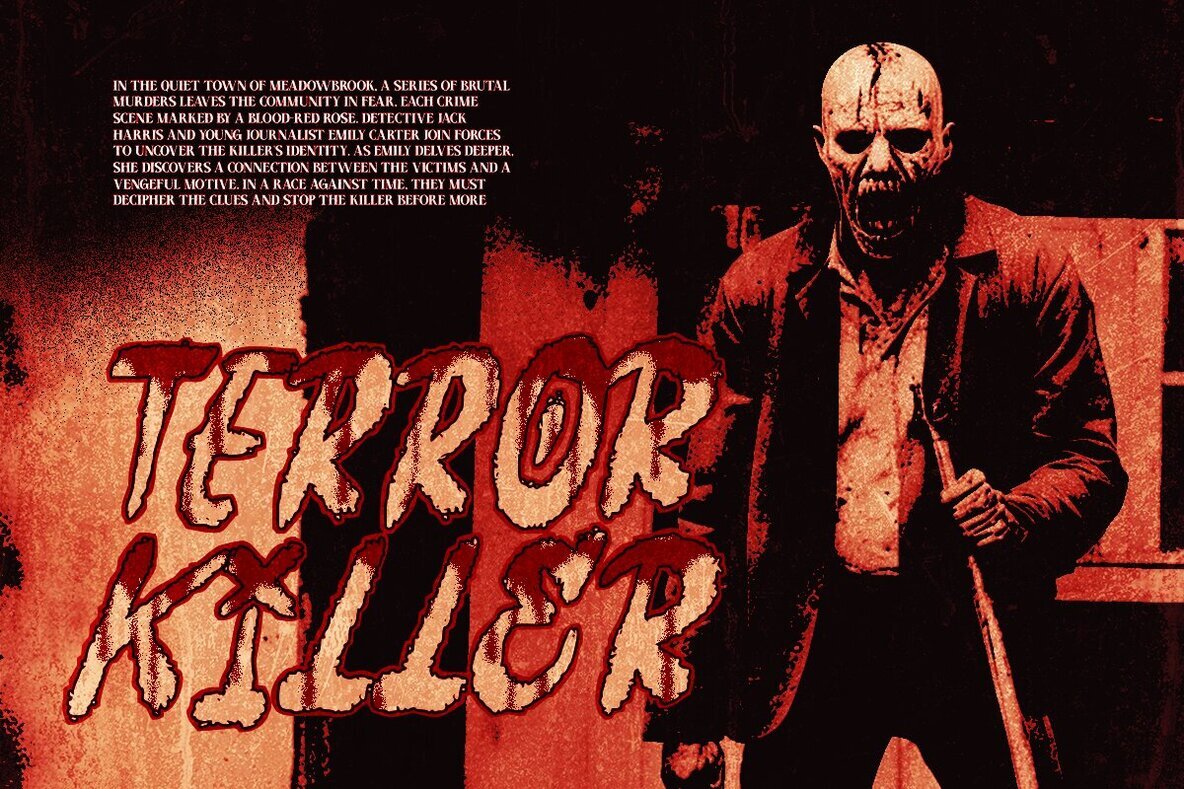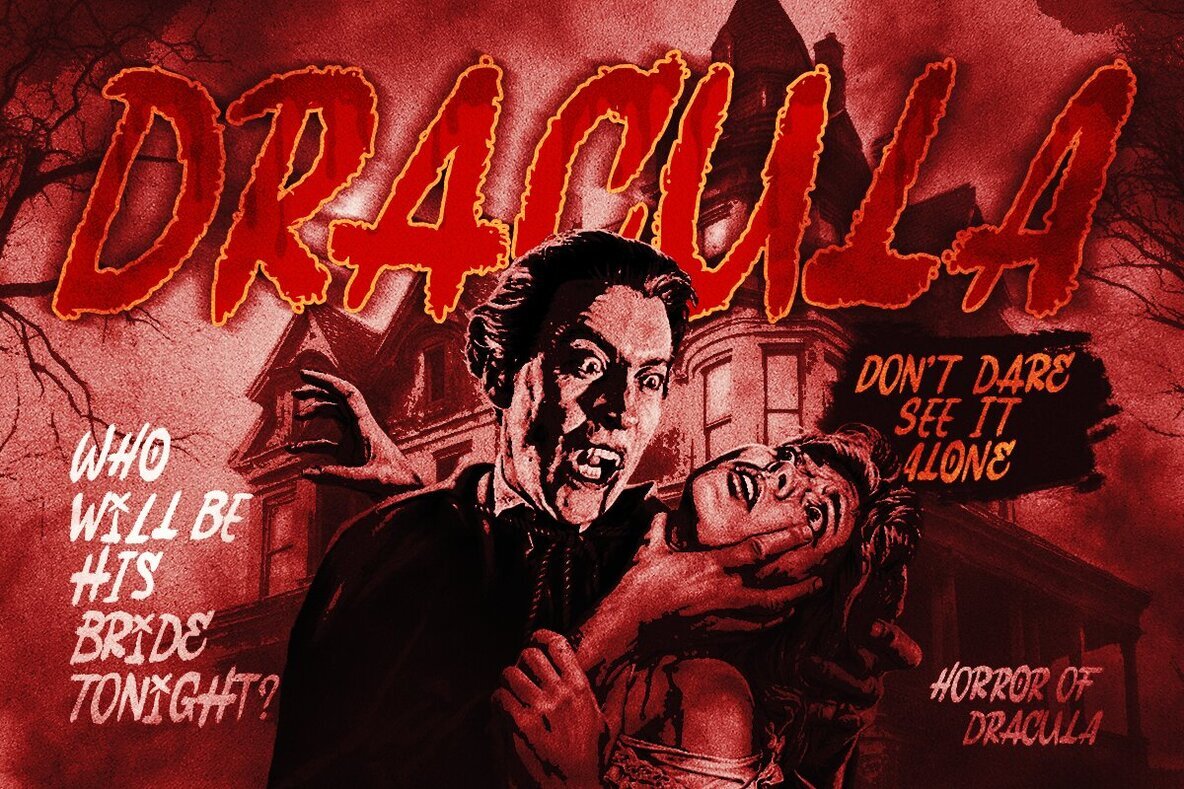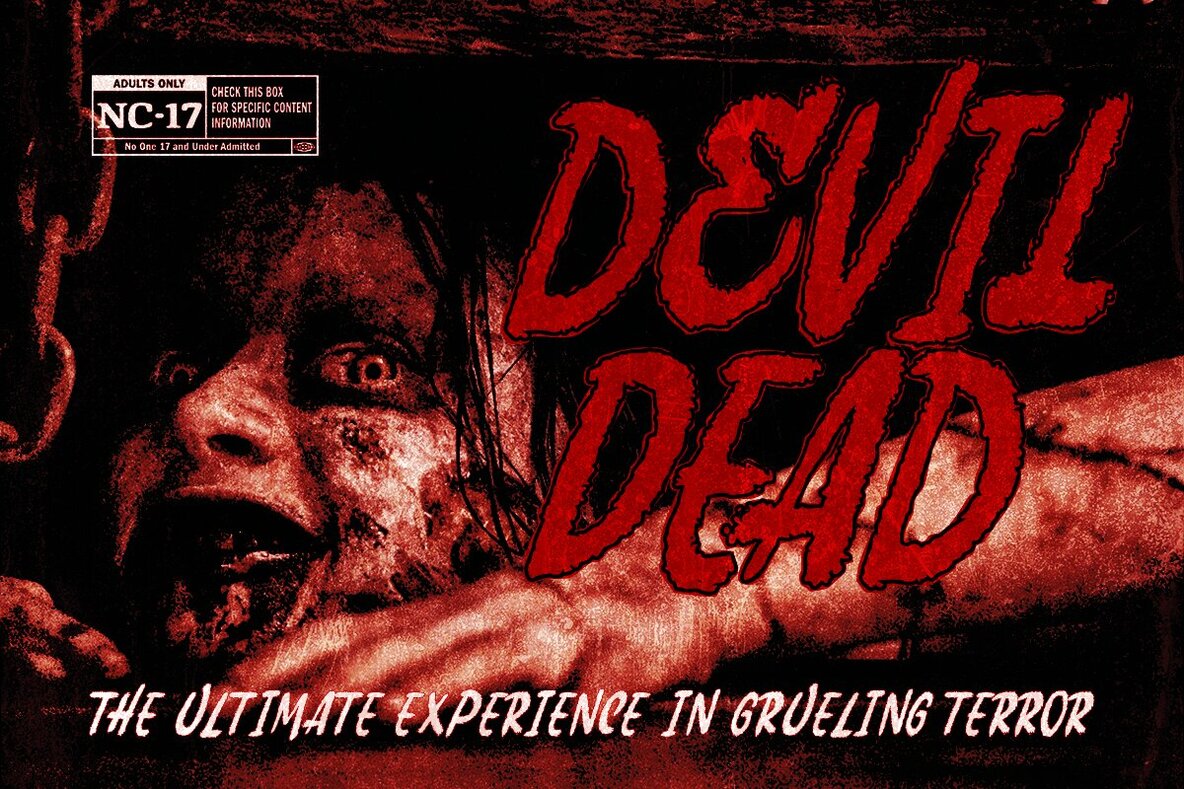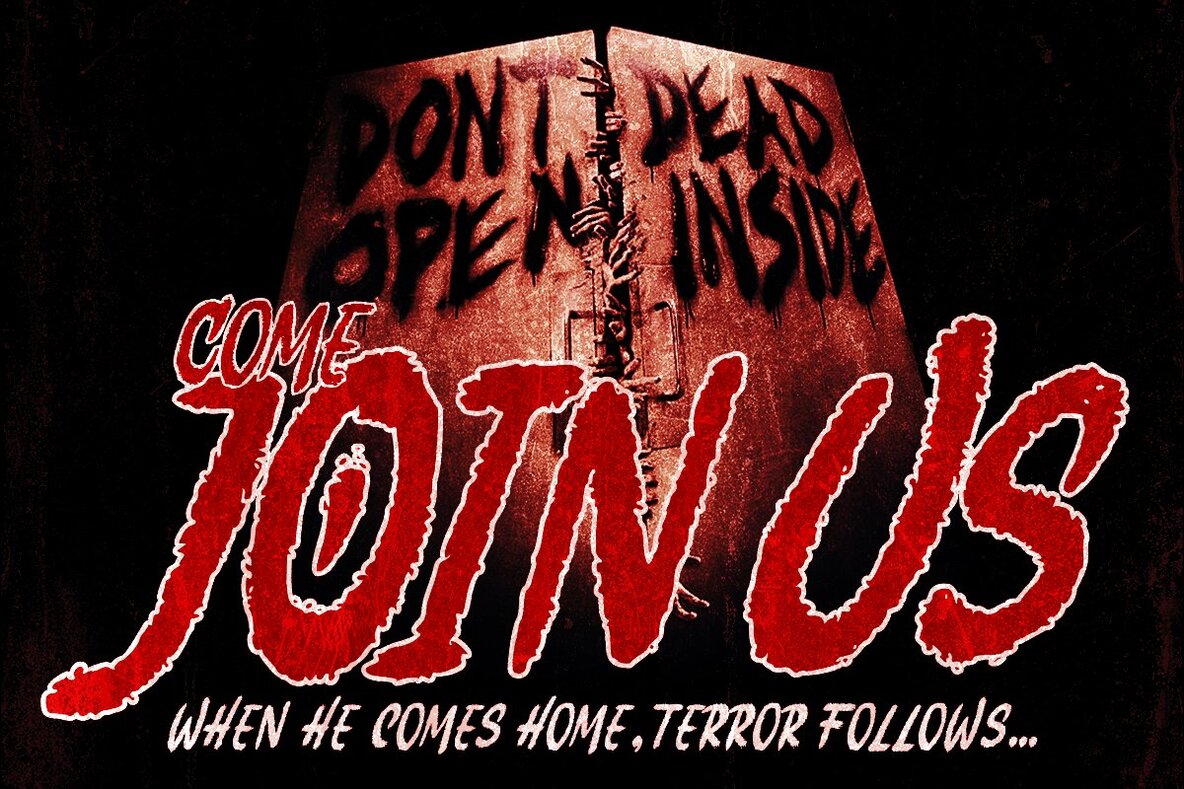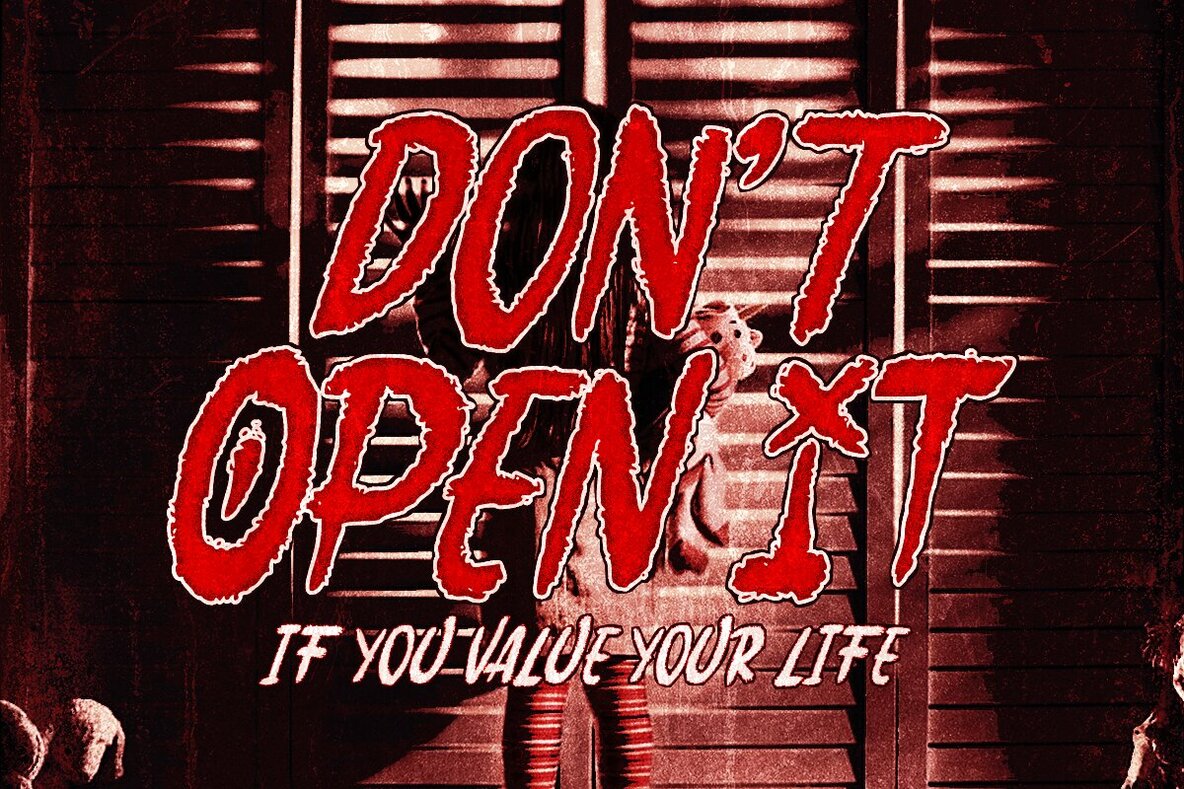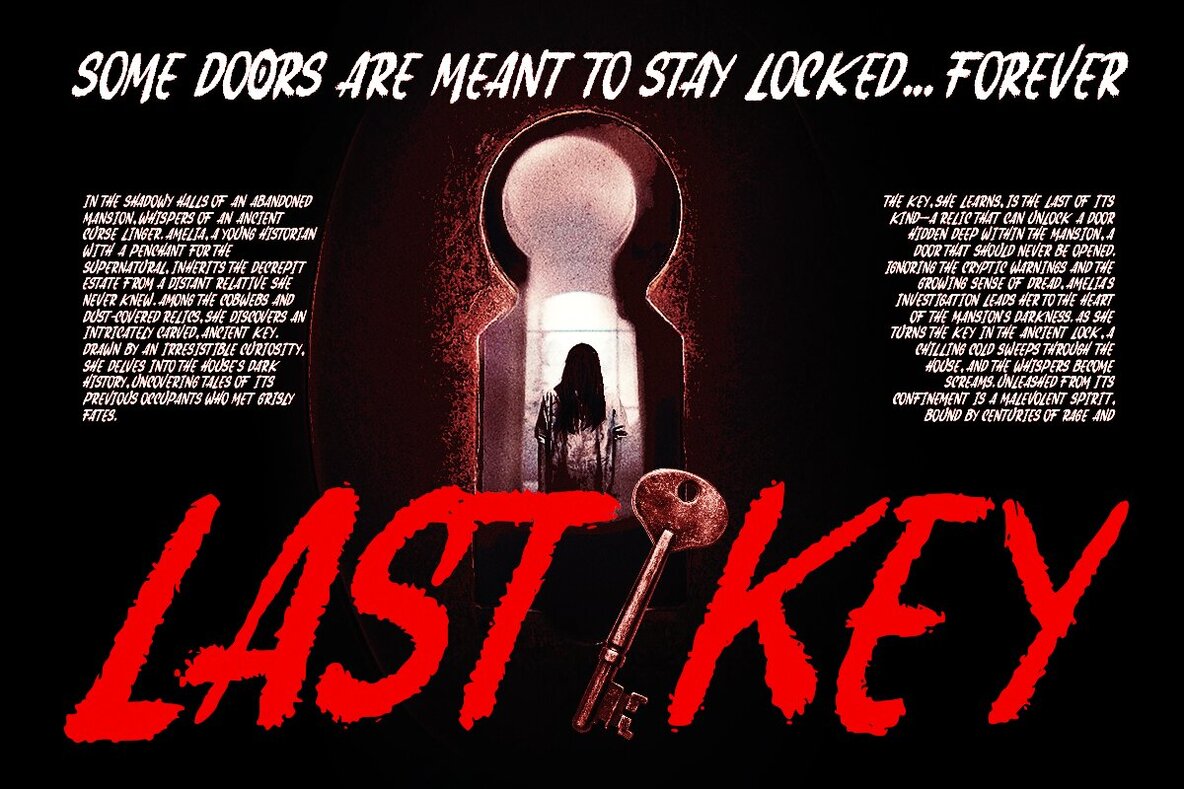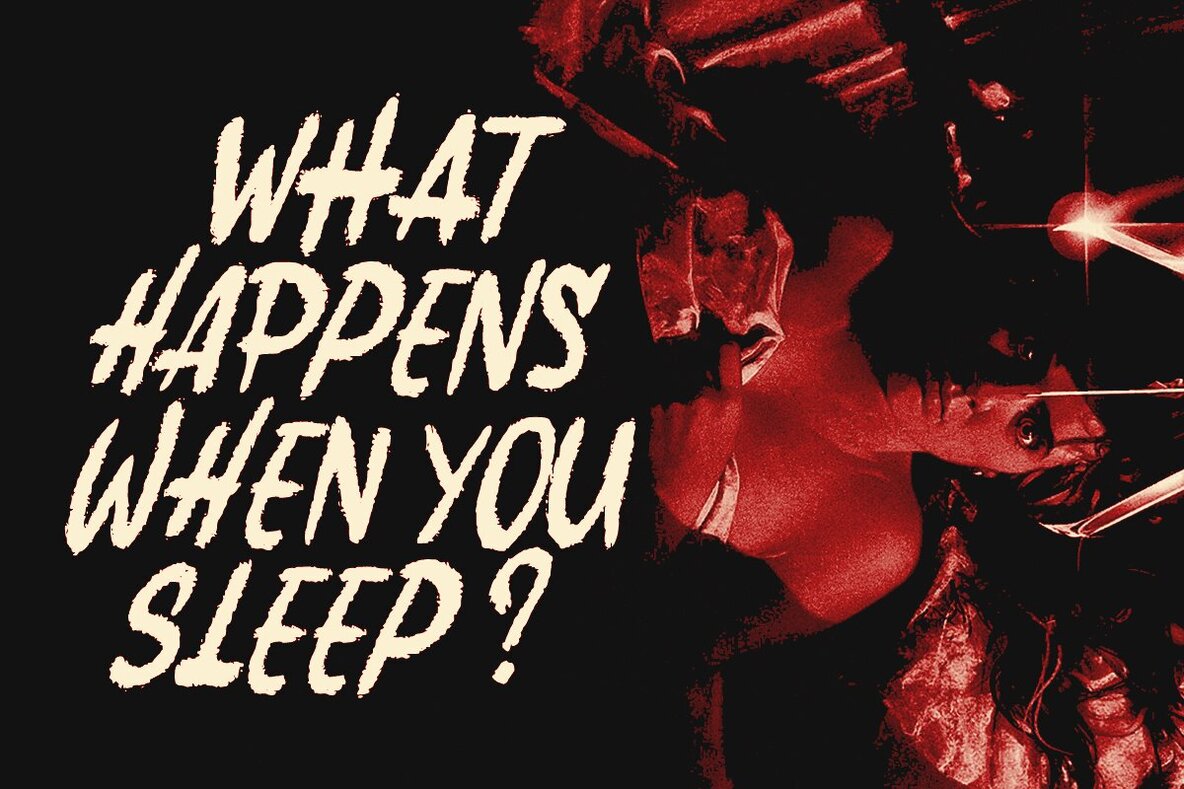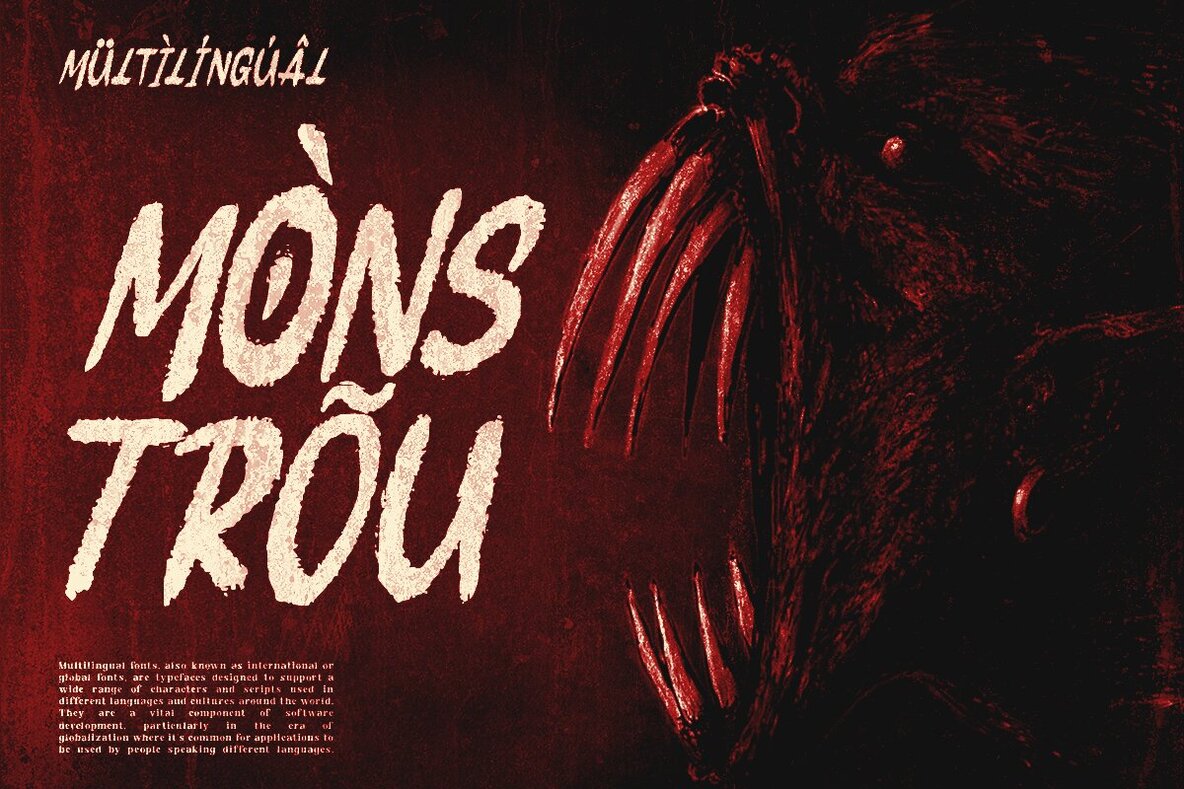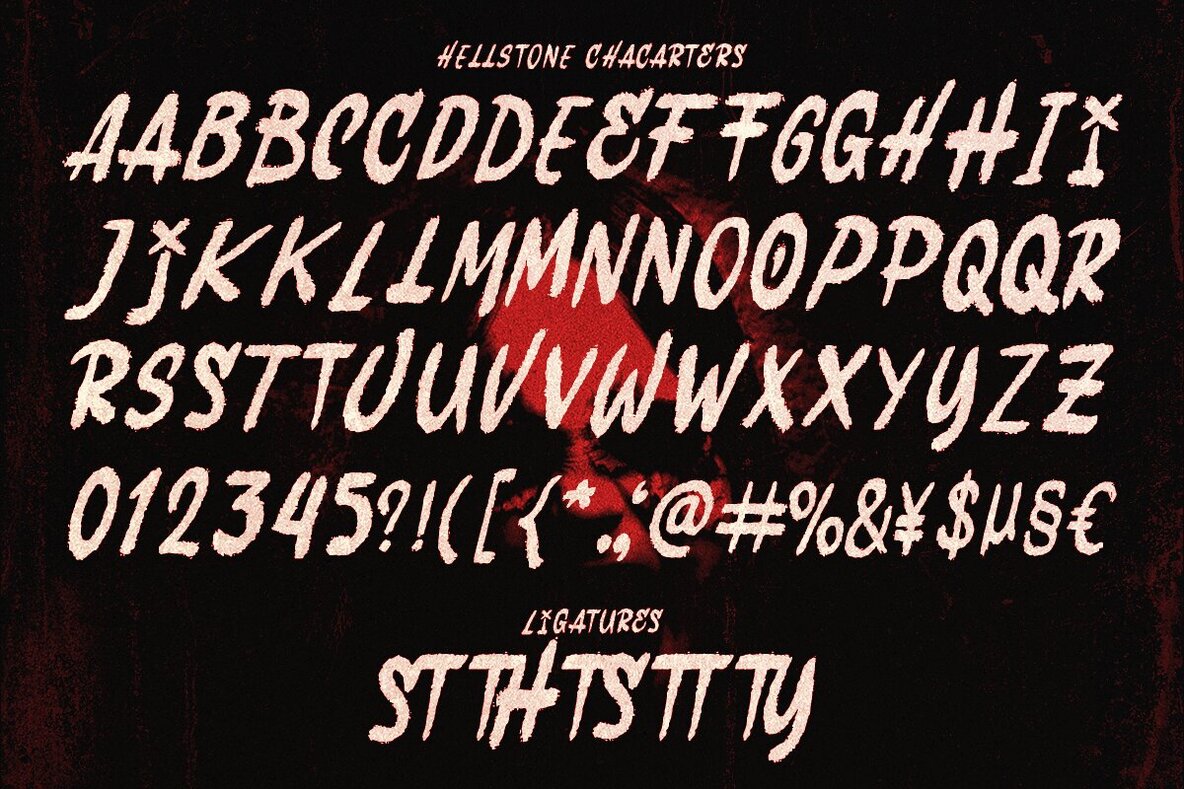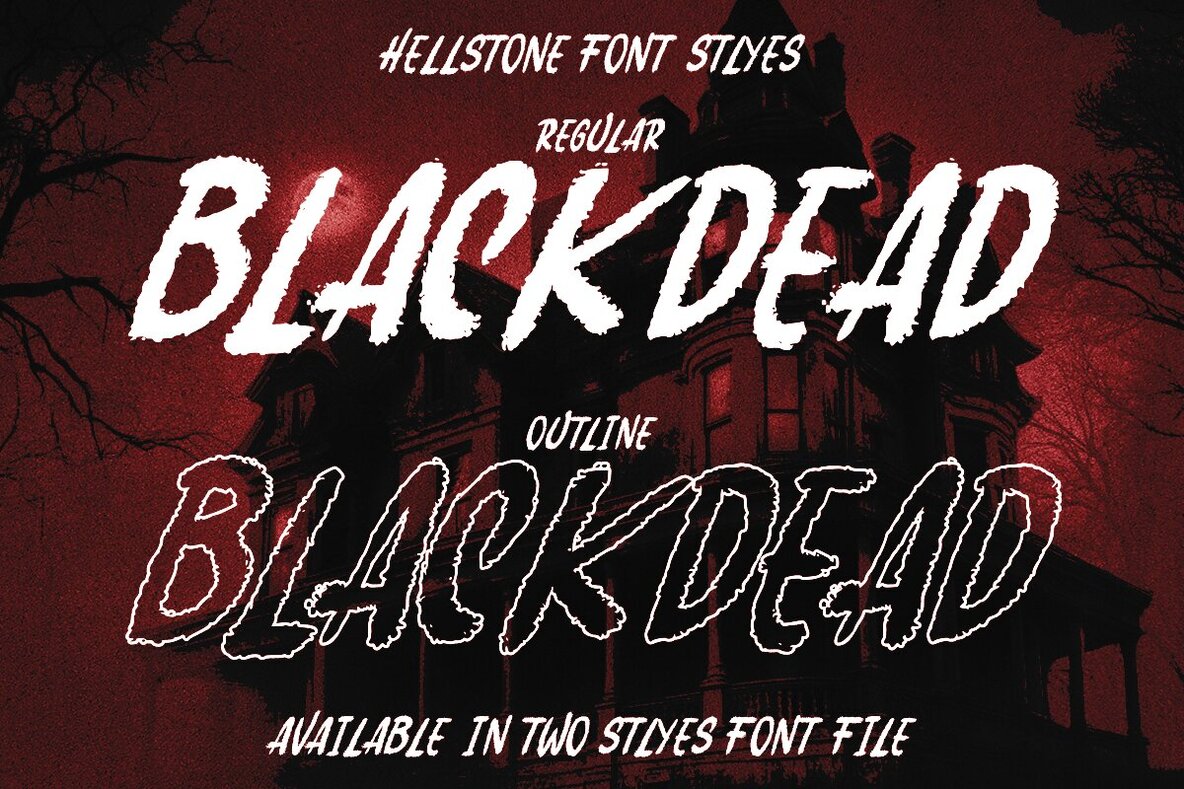
Hellstone Font
Hellstone is a handmade horror font crafted to exude fear and dread. Taking inspiration from classic horror and thriller movie posters, Hellstone features a bold, solid brush style that sends immediate chills. Its rough, handwritten nature makes it ideal for Halloween projects and horror movie posters that require a haunting, unsettling atmosphere. With a mix of unique lowercase and uppercase characters, Hellstone allows for creative and authentic handwritten design combinations. Whether your goal is to evoke outright nightmares or provide a subtle scare, this font captures the true essence of horror.
The font package includes two styles: Regular and Outline. You'll receive uppercase and lowercase letters, punctuation, numbers, and bonus ligature characters. Hellstone also offers multilingual support and comes PUA encoded, ensuring it’s fully accessible without additional design software. Compatible with PC and Mac, Hellstone is easy to install and works seamlessly with Adobe Illustrator, Adobe Photoshop, Microsoft Word, and Canva. This versatility makes it the perfect choice for any designer aiming to create spine-chilling designs.